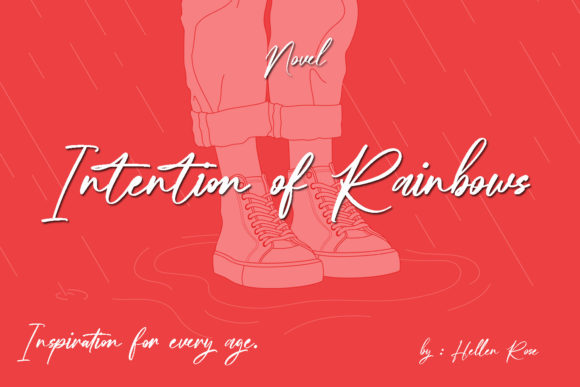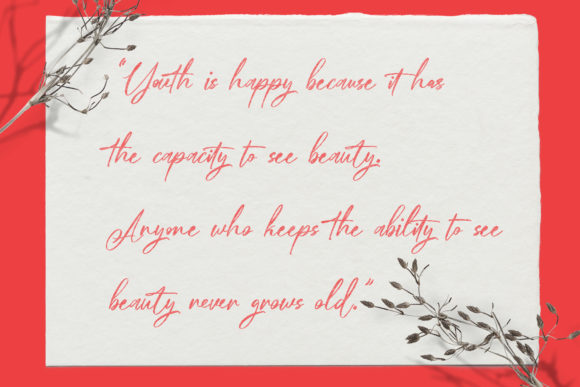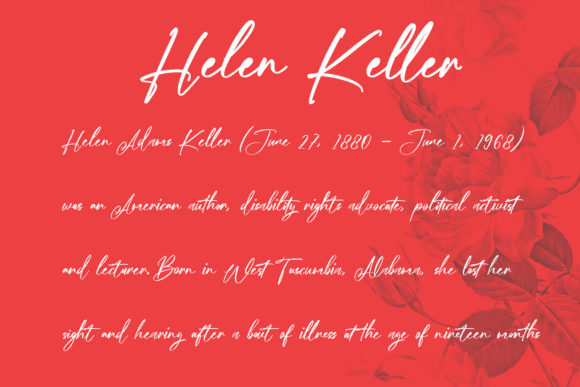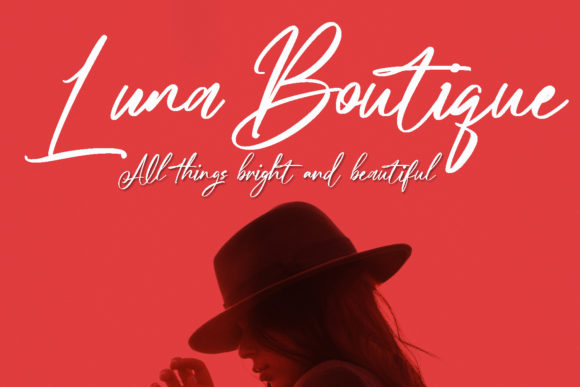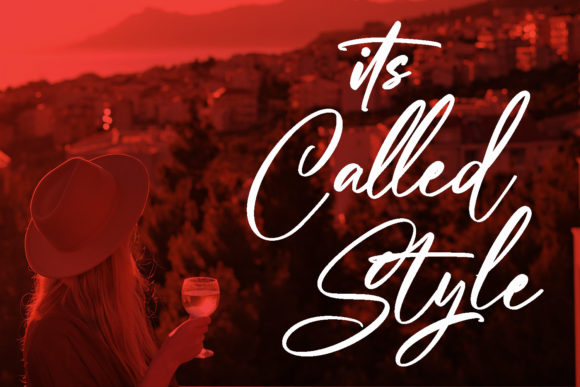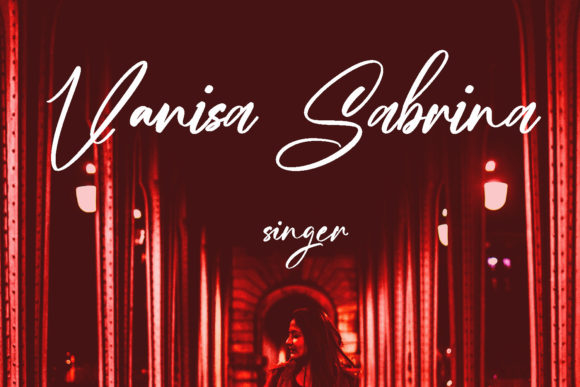
Introduction to Frankfruits Font
Have you ever stumbled upon the perfect font at the exact moment when you needed it the most? That’s exactly what happened to me when I discovered the Frankfruits Font. I was working on a creative project with a transparent background, and I needed a font that would pop against it. As I scrolled through my design resources, I finally found the perfect match – Frankfruits Font. Its high contrast strokes and fun characters made my design come alive.
As a designer, I can attest that finding the right font can make all the difference in a project. That’s why I’m excited to share my experience with the Frankfruits Font, which offers a wide range of features including ligatures and alternates. Whether you’re working on a free download or a high-quality commercial project, this font is sure to impress.
Key Features of Frankfruits Font
- Features a unique, modern design with a mix of clean lines and playful details
Honest Review: Frankfruits Font
As a designer, I’m always on the lookout for high-quality design resources to elevate my creative projects. I recently had the chance to try out the Frankfruits Font, and here’s my honest review.
What works well: ✨ The Frankfruits Font is a beautifully crafted font that’s perfect for adding a touch of whimsy to your designs. Its playful, hand-drawn style makes it a great choice for children’s books, branding, and other creative projects. I also appreciate that the font comes with a transparent background, making it easy to use in various design applications.
What doesn’t work so well: ⚠️ While the font is generally well-designed, I did notice that it can be a bit too playful for some projects. Some users may find it difficult to read, especially in smaller font sizes. Additionally, the font only comes in a few weights, which may limit its usability in certain contexts.
The Frankfruits Font is a versatile and high-quality design resource ideal for creative projects that require a unique touch. Its transparent background makes it easy to integrate into various design applications.
Tips for Getting the Most Out of Frankfruits Font
To get the most out of the Frankfruits Font, experiment with different font sizes, colors, and combinations to create unique and eye-catching designs.
The Frankfruits Font is ideal for various creative projects, including: